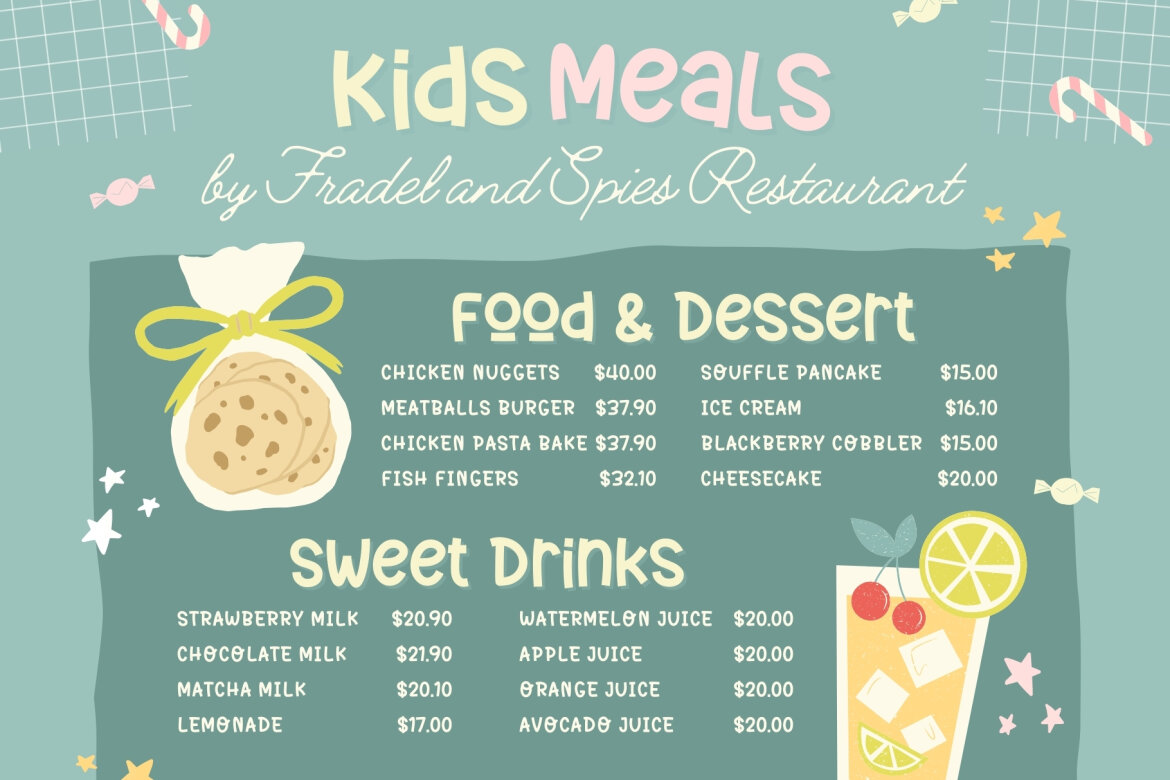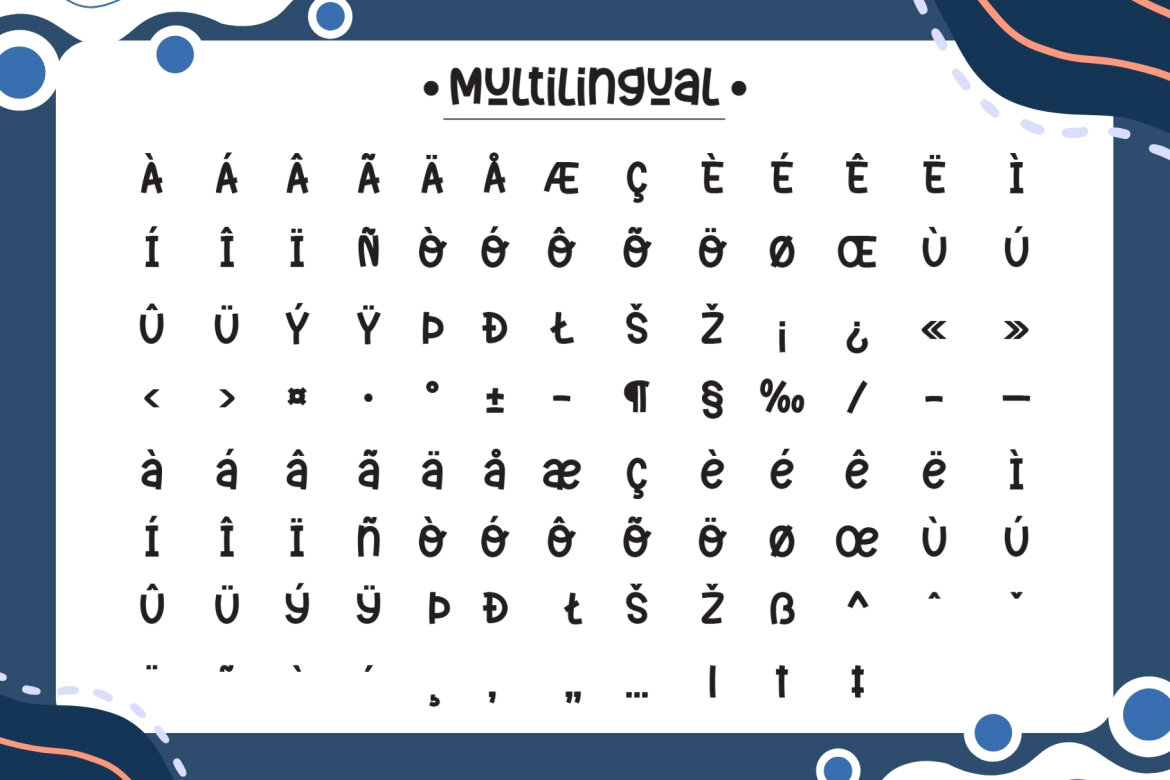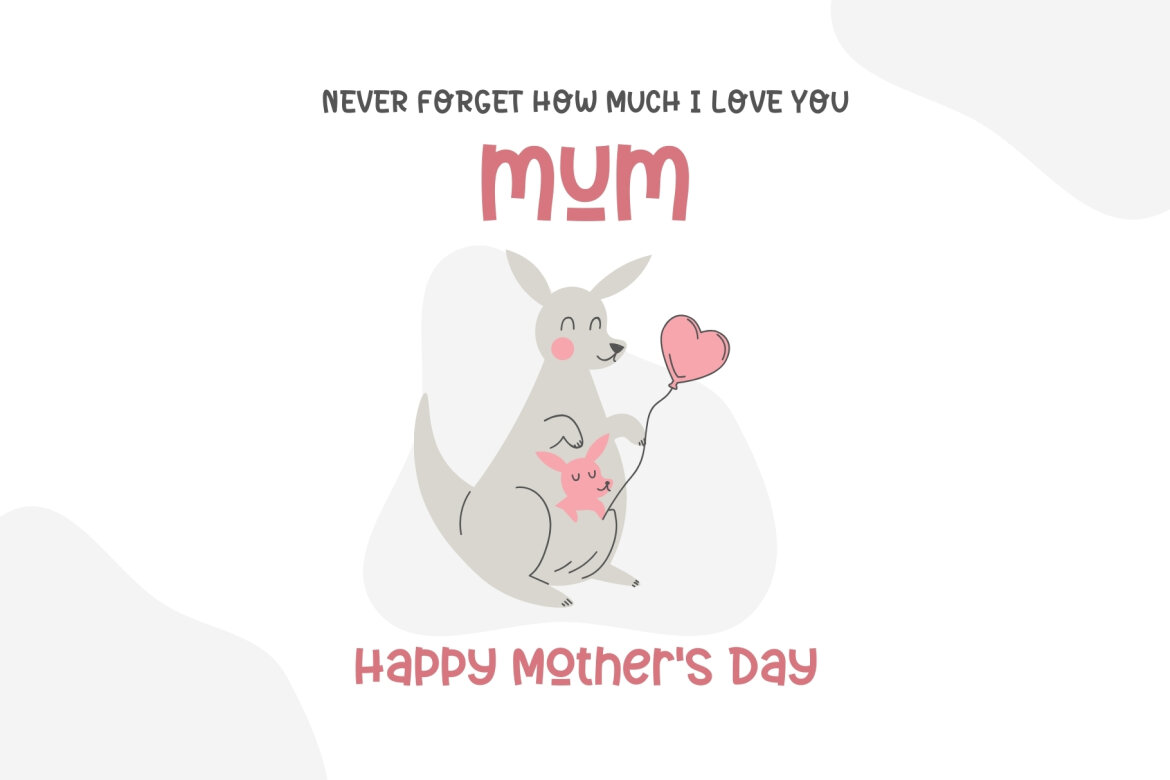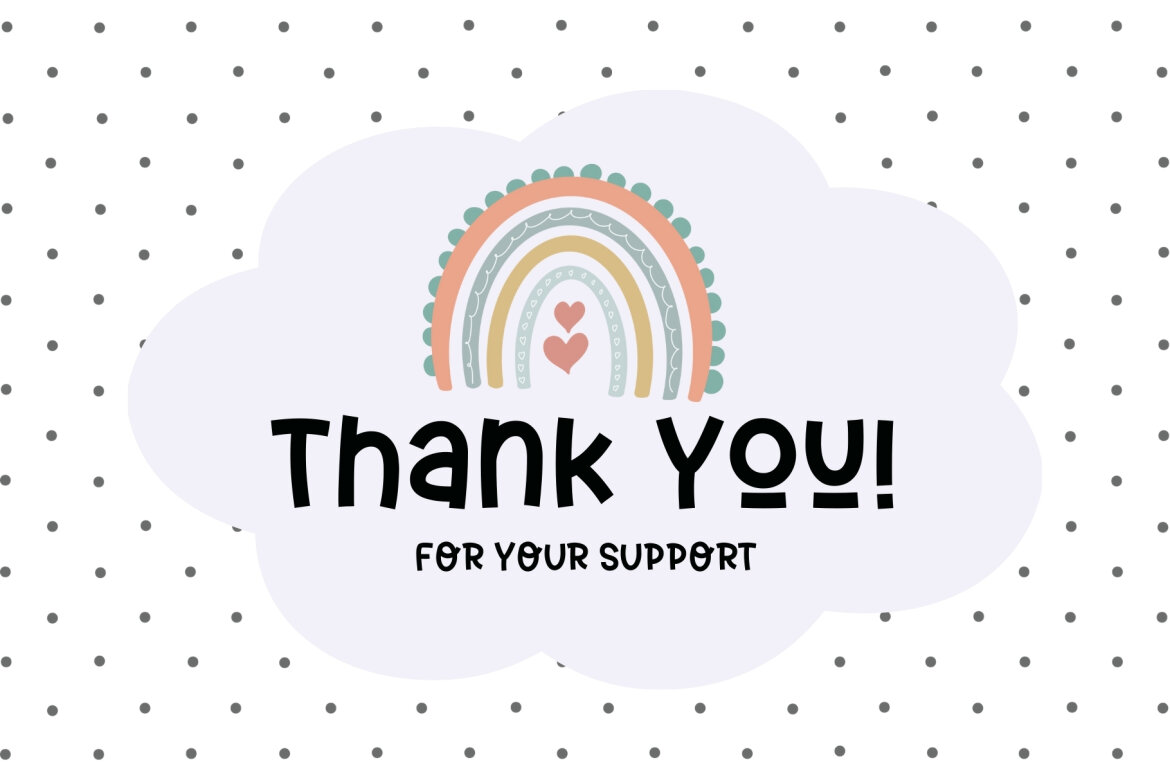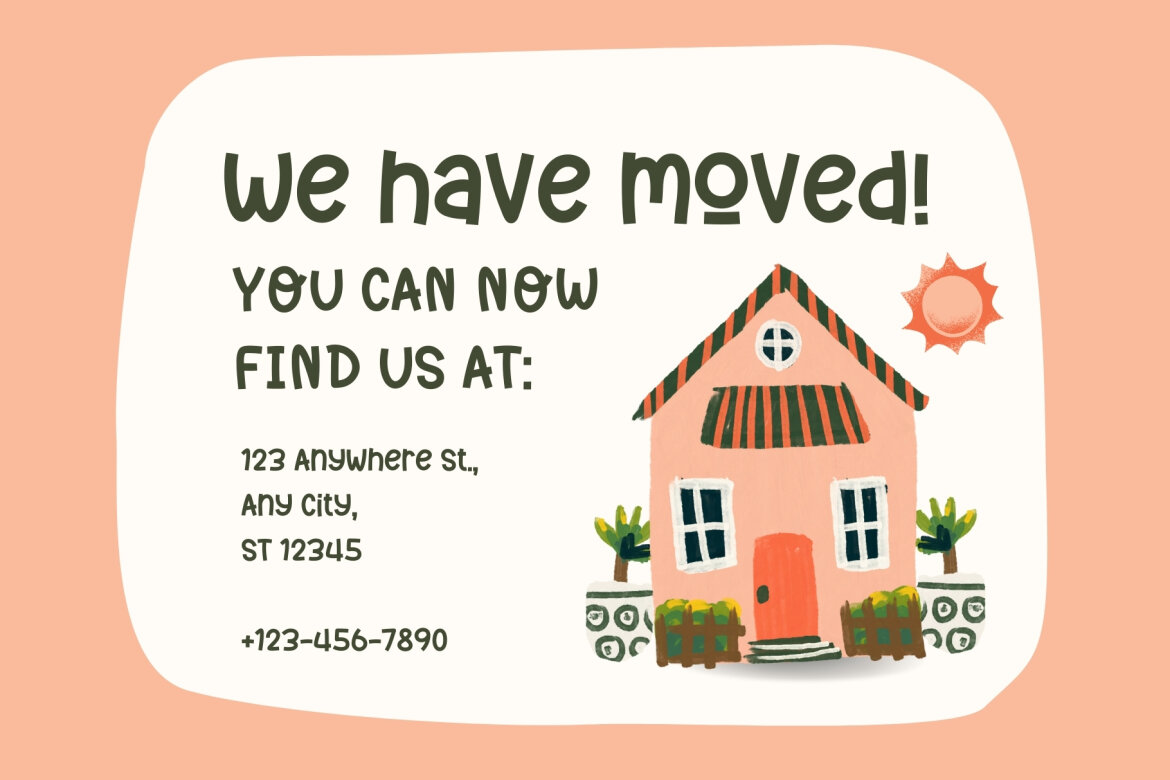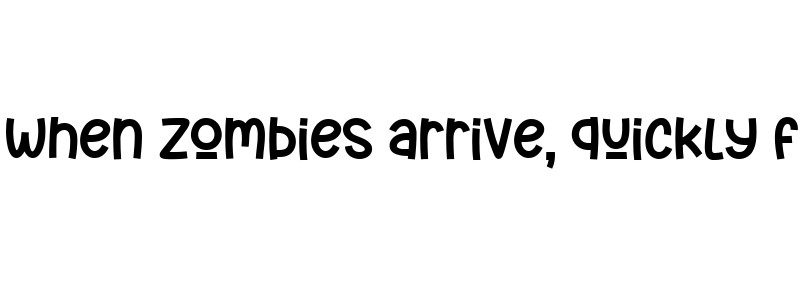
Fox Bonsai FREE Font
Fox Bonsai
Introducing Fox Bonsai, a charming yet delightful Display font. With an adorable and playful touch, it creates a friendly atmosphere, becoming an ideal choice for numerous design concepts. From children's themed projects to expressive blog posts, it exudes a unique charisma. Its versatility doesn't stop there, as it also shines in branding efforts, imprinting logos with personality and breathing life into advertisements. Fox Bonsai can even add a touch of fun to invitations, greeting cards, and planners. Its creative potential is limitless, transforming photo albums and decorations into something truly special. Experience the magic of Fox Bonsai, where charm meets versatility in design projects.